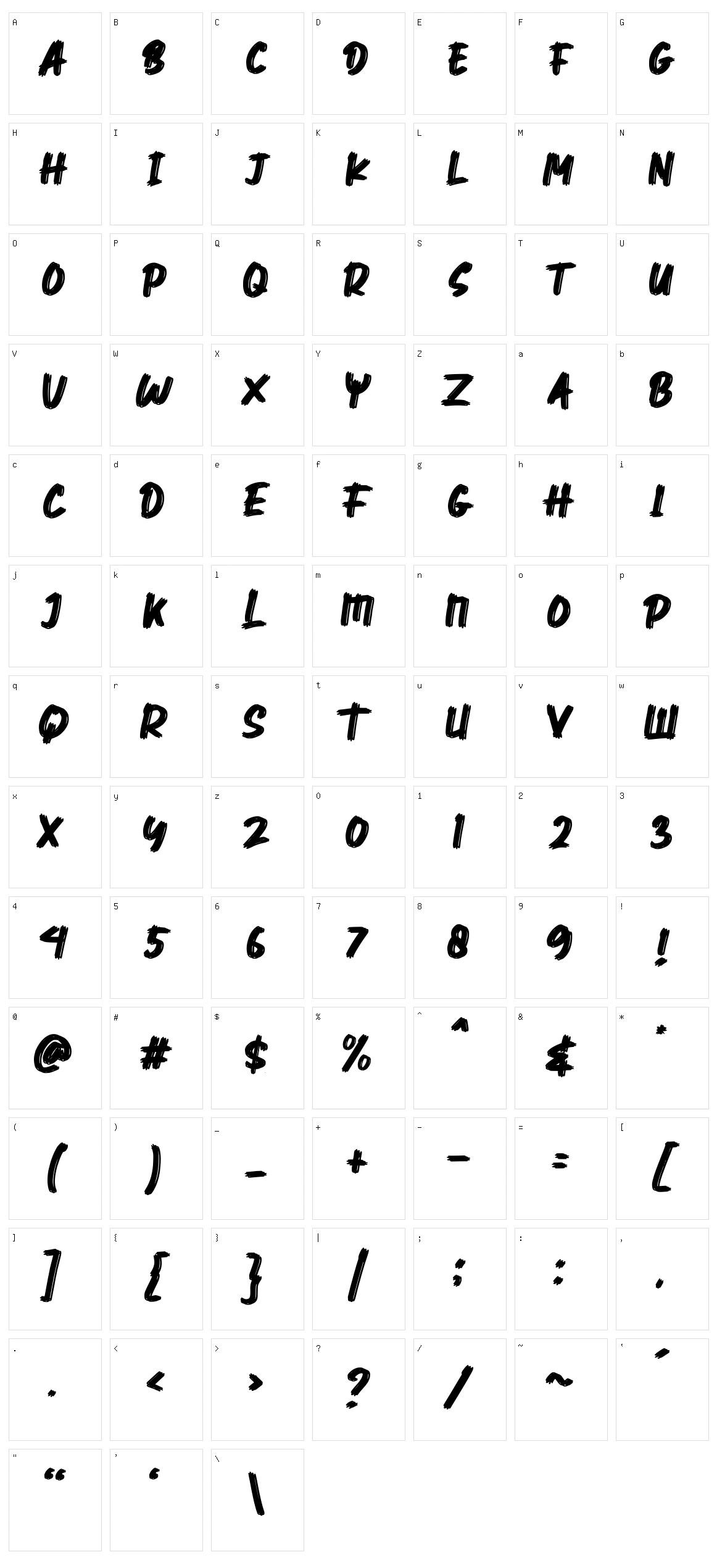
The free font Mehren Brush is carefully designed by Typetemp Studio, showcasing a thoughtful balance of creativity and usability and falls under the Horror font style. When you download the ZIP file, it contains only 108.92 KB of font files, making it lightweight and quick to download. Please review the license details below to understand permitted usage and distribution rights. If license information is not available, we recommend using this font for personal projects only or contacting the author directly for commercial usage permissions.